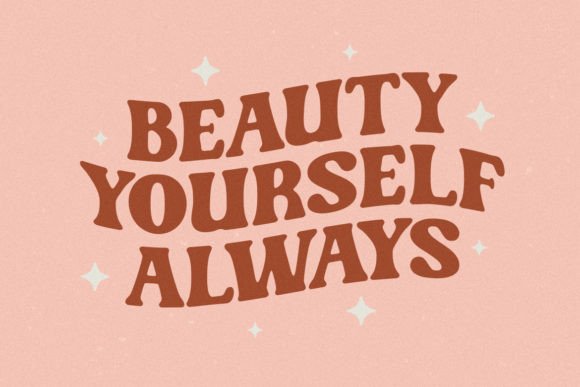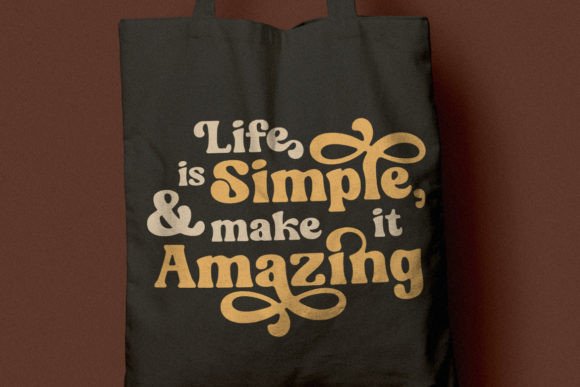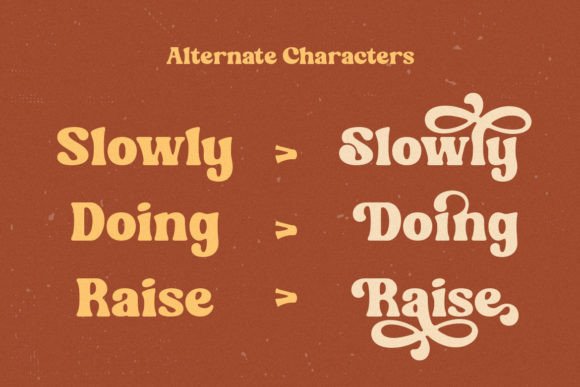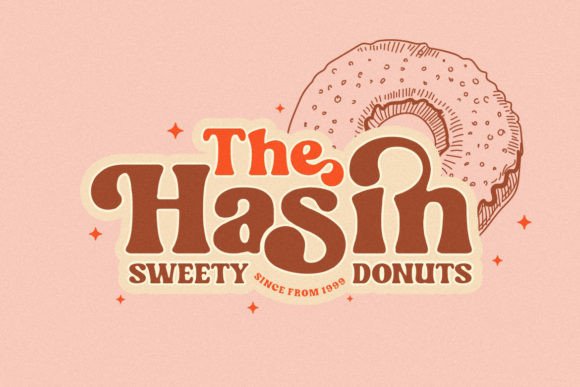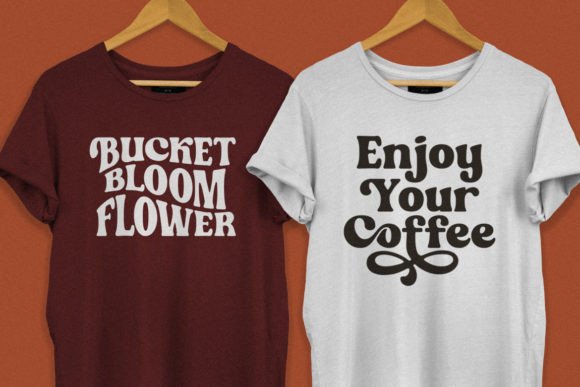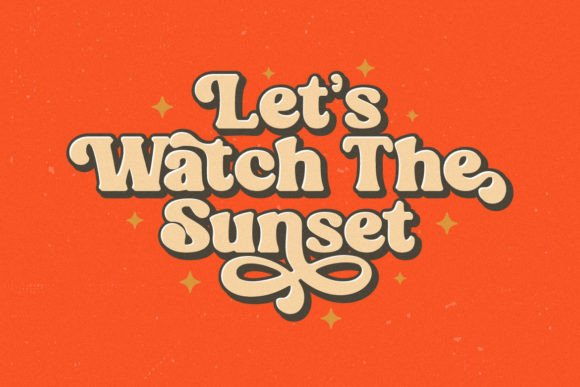
Introduction to Shine Coasty Font Font
Fonts play a crucial role in design, and the Shine Coasty Font font is a typeface that brings both character and versatility to any project. Whether you’re working on a branding project, a website, or a print design, the Shine Coasty Font font offers a unique style that can elevate your work.
Shine Coasty is a retro bold display font.
You will get alternate characters such as swash on some characters Use this display font to add that special retro touch to any design idea you can think of.
The Shine Coasty Font font is more than just a typeface – it’s a design tool that helps you communicate your message with style and clarity. Its unique character set and versatile design make it suitable for a wide range of applications, from elegant invitations to bold headlines.
With its carefully crafted letterforms and balanced proportions, the Shine Coasty Font font ensures readability and visual appeal across all mediums.
The Shine Coasty Font font stands out with its unique design, exceptional readability, and versatility across various design applications.